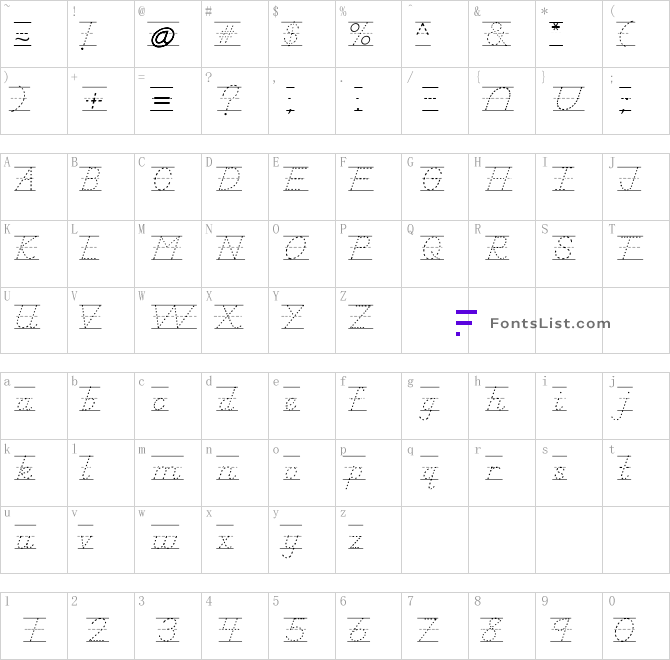
- Font Name:AbcDNManusDottedLined
AbcDNManusDottedLined.ttf is a very beautiful artistic font, AbcDNManusDottedLined.ttf is widely used in the design and printing of various books and pictures,AbcDNManusDottedLined.ttf has a strong visual impact,AbcDNManusDottedLined.ttf is a commonly used font in newspapers, magazines and books, and is used in posters, e-commerce Poster design, store design, logo design, font design and other fields.AbcDNManusDottedLined.